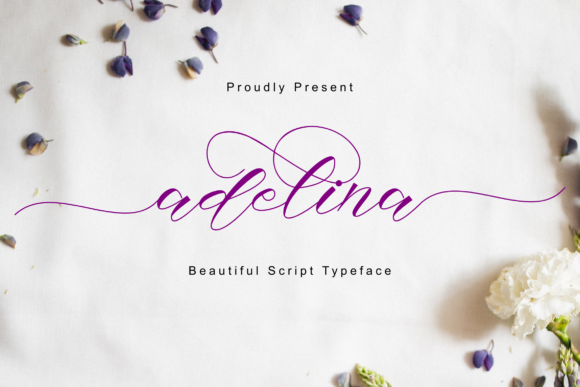
I still remember the project like it was yesterday. A client asked for a logo design that exuded luxury and sophistication. I spent hours scouring font libraries, trying to find the perfect match. That’s when I stumbled upon Adelina Font. Its elegant script and refined features immediately caught my attention. In this article, I’ll share my experience with Adelina, its features, and how to make the most of this beautiful font.
Adelina Font: A Comprehensive Review
• ✨ Sophisticated and elegant design: Adelina’s script font is perfect for projects that require a touch of luxury.
• ✅ PUA encoded: Easy access to all glyphs and swashes, making it a breeze to customize.
• 🎨 Stylish alternates and ligatures: Add a personal touch to your designs with Adelina’s range of alternates and ligatures.
While Adelina is an excellent font, there are a few things to keep in mind:
• 🤔 Limited use in body text: Adelina’s script font is best suited for headings and titles. It may not be the best choice for lengthy paragraphs.
The Story Behind Adelina Font
Adelina was designed with elegance and sophistication in mind. The creator aimed to craft a font that would evoke luxury and refinement. With its stylish alternates and ligatures, Adelina has become a popular choice among designers.
Q: Is Adelina suitable for body text?
A: While Adelina is an excellent font, it’s best suited for headings and titles. For body text, consider a more readable font.
Q: Does Adelina support OpenType features?
A: Yes, Adelina is PUA encoded and supports OpenType features, including swashes and ligatures.